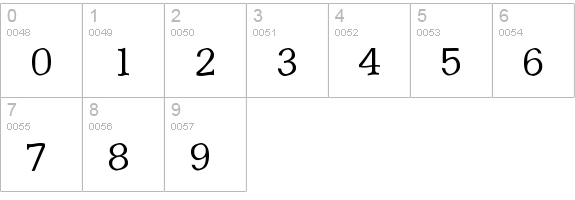
Introducing ShakeySlabserif, a captivating and versatile font that will add a touch of elegance and sophistication to your designs. With its unique blend of modern and classic elements, ShakeySlabserif exudes a sense of confidence and style. This stunning font features bold and sturdy slab serifs that are beautifully balanced with delicate curves and subtle detailing, creating a harmonious and eye-catching visual experience. Whether used for headings, titles, or body text, ShakeySlabserif brings a distinct charm and character to any project. But what sets ShakeySlabserif apart is not just its exceptional design, it's also the fact that it is available for free! That's right, you can download this remarkable font without any cost or limitations. Thanks to the generosity of FontsMarket.com, ShakeySlabserif is freely accessible to all designers, enthusiasts, and creatives looking to elevate their work. As you explore the vast possibilities of ShakeySlabserif, you'll discover its versatility across various design applications. From branding and logo design to editorial layouts and web design, this font effortlessly adapts to any context, making it an invaluable asset in your creative arsenal. Furthermore, ShakeySlabserif is designed with utmost attention to detail, ensuring legibility and readability in both print and digital mediums. Its carefully crafted letterforms and well-balanced spacing guarantee a smooth reading experience, allowing your message to shine through with clarity and impact. So, what are you waiting for? Unleash your creativity and elevate your designs with ShakeySlabserif. Download this exceptional font for free at FontsMarket.com and let its captivating beauty transform your projects into true works of art.